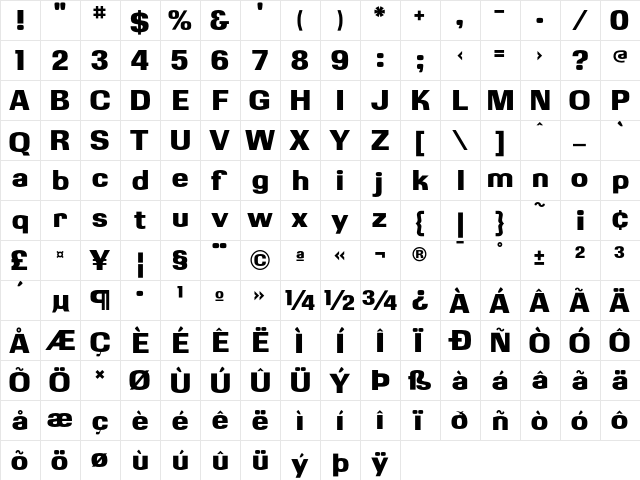
KasseUltraFLF Regular
Design Context for KasseUltraFLF Typeface
KasseUltraFLF offers clean, dependable letterforms without strong stylistic allegiance, making it a practical choice for designers who need flexibility.